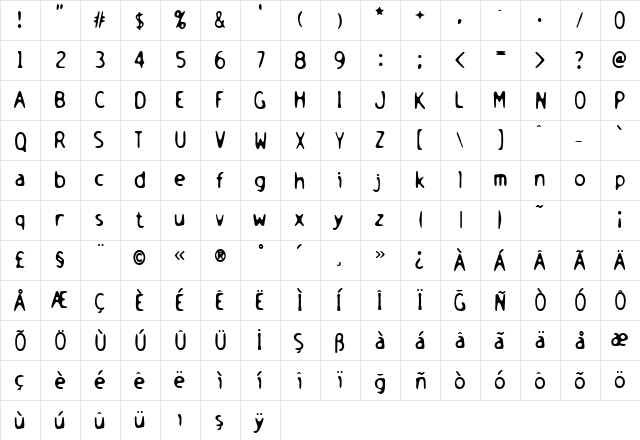
Holstein Turkish Regular
Design Context for Holstein Turkish Typeface
Holstein Turkish is a composed and adaptable typeface that performs quietly and consistently across a wide range of design contexts.